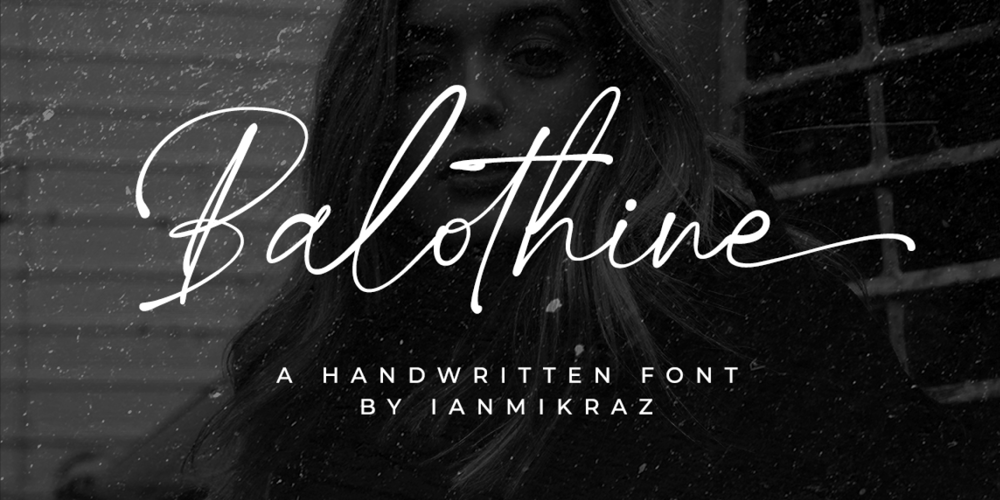
Balothine Font Family was designed by Ian Mikraz and published by IanMikraz Studio. Balothine contains 1 styles and family package options. Indulge in the artistry of handwritten elegance with our exquisite collection of script fonts! Embrace the allure of effortless charm and the timeless appeal of authentic handwriting in your designs. Our handcrafted script fonts beautifully mimic the fluid strokes and natural flow of a skilled calligrapher’s pen, bringing a touch of sophistication to your projects.Each letter is meticulously crafted, ensuring impeccable legibility while maintaining the organic beauty of handwritten text. Whether you’re designing wedding invitations, branding materials, or heartfelt greeting cards, our script fonts will infuse your creations with a sense of personal touch and undeniable grace. Let your words dance on the page and evoke emotions like never before with our captivating selection of handcrafted script fonts.We believe that every stroke tells a story. That’s why we meticulously create our handwriting script fonts with a passion for preserving the art of penmanship. Each curve, loop, and swash is crafted with meticulous attention to detail, resulting in a collection of fonts that exude authenticity and character.With a diverse range of styles, from elegant and refined to playful and whimsical, our script fonts offer endless possibilities for expressing your unique creative vision. Whether you’re designing logos, packaging, social media graphics, or any other project that calls for a touch of personal flair, our handwriting script fonts will add a sense of warmth, personality, and individuality to your work. Experience the magic of handwritten charm and unlock the true potential of your designs with Balothine – Handwriting Font – where artistry meets typography.